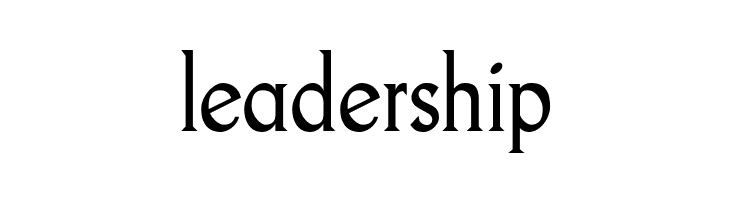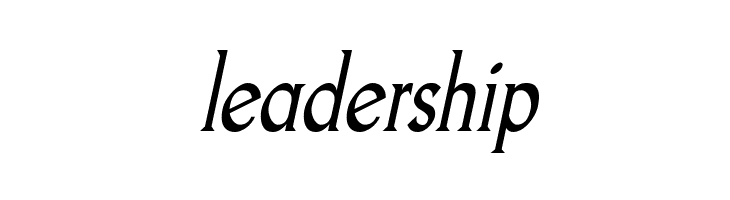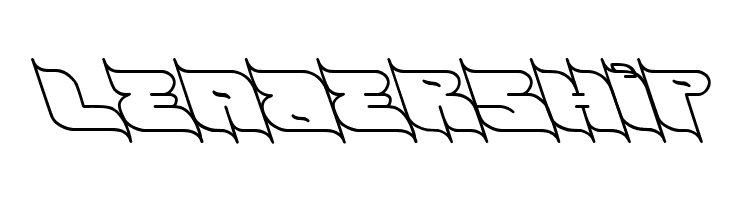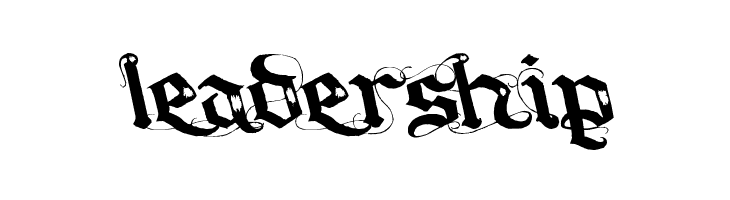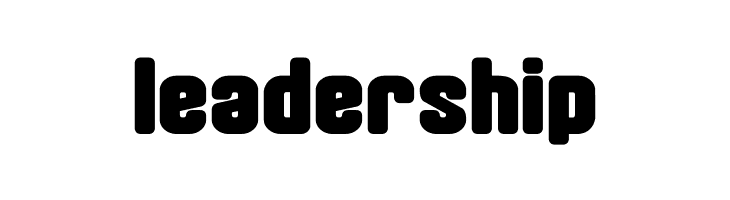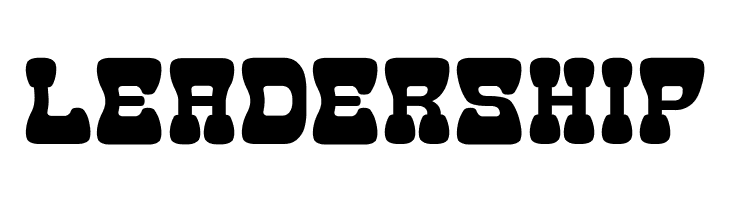
• Goma Cookie__G
A playful, rounded font with bold, smooth curves and a friendly, whimsical style.
• Goma Western 2
A bold, playful font with rounded edges and thick strokes.
• Goma Western 2
A bold, playful Western-style font with rounded, thick strokes and bulbous terminals.
• Goma-Standard02
A bold, rounded font with a playful and modern style.
• Goma-Standard02
A bold, rounded font with a playful and modern style.
• Goodfish-Bold
A bold serif font with high contrast and classic elegance.
• Goodfish-BoldItalic
A bold, italicized font with dynamic and modern letterforms.
• Goodfish-Italic
An elegant serif font with an italic slant and moderate stroke contrast.
• Goodfish-Regular
A classic serif font with elegant, sharp serifs and a sophisticated appearance.
• Gopnai Droogie
A bold, artistic font with dynamic angles and curves, perfect for creative projects.
• Gorila
A modern, geometric font with a clean and minimalistic design.
• Gorila
A modern, geometric font with clean lines and a structured, futuristic appearance.
• Gorila Bold
A bold, geometric font with a modern and impactful design.
• Gorila Bold
A bold, geometric font with a modern, tech-inspired design.
• GOTFADED
A bold, modern font with a unique halftone texture and consistent width.
• Gothic Birthday Cake
A Gothic-inspired decorative font with ornate, playful letterforms and high contrast.